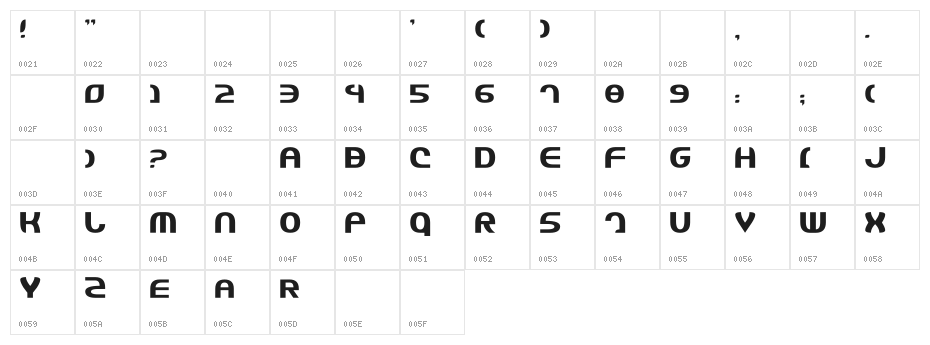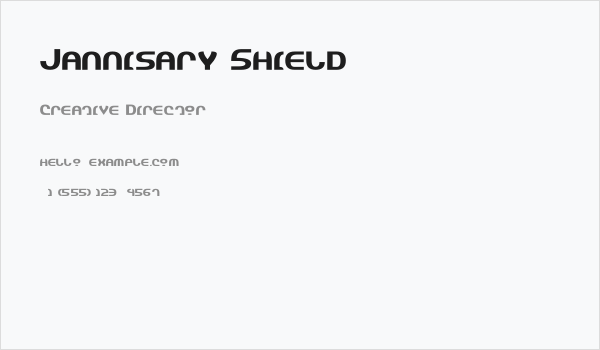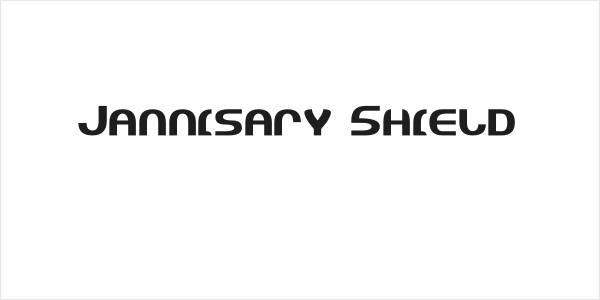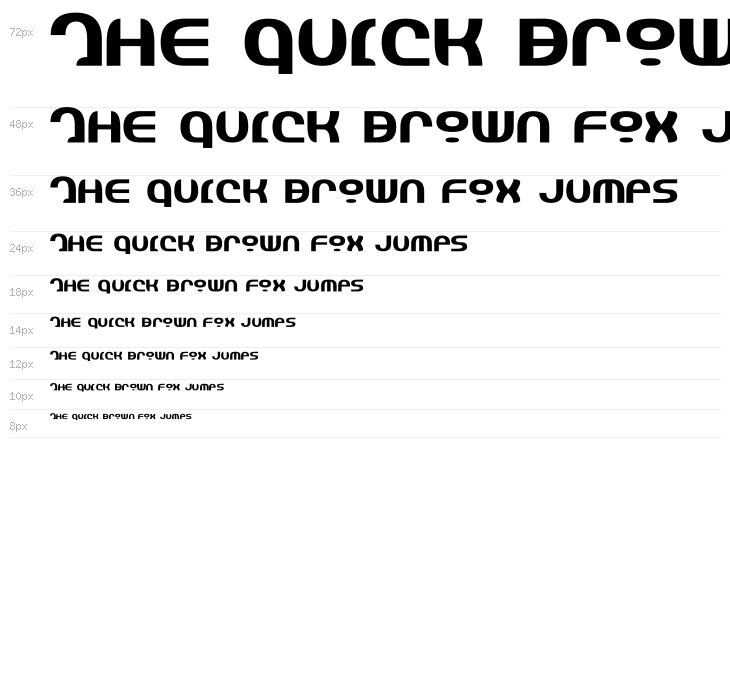
Jannisary Shield Font
Jannisary Shield Description
This font features a bold and modern design with a unique geometric style. The characters are constructed with smooth curves and sharp angles, creating a futuristic appearance. The uppercase and lowercase letters maintain a consistent width, while the numbers and special characters complement the overall design. The font's structure is clean and legible, making it suitable for various design applications. Its distinctive look is achieved through the combination of thick strokes and rounded edges, providing a balanced and harmonious visual impact.
Proposed ProjectsIdeal for branding, headlines, posters, and digital media projects that require a modern and eye-catching typeface.